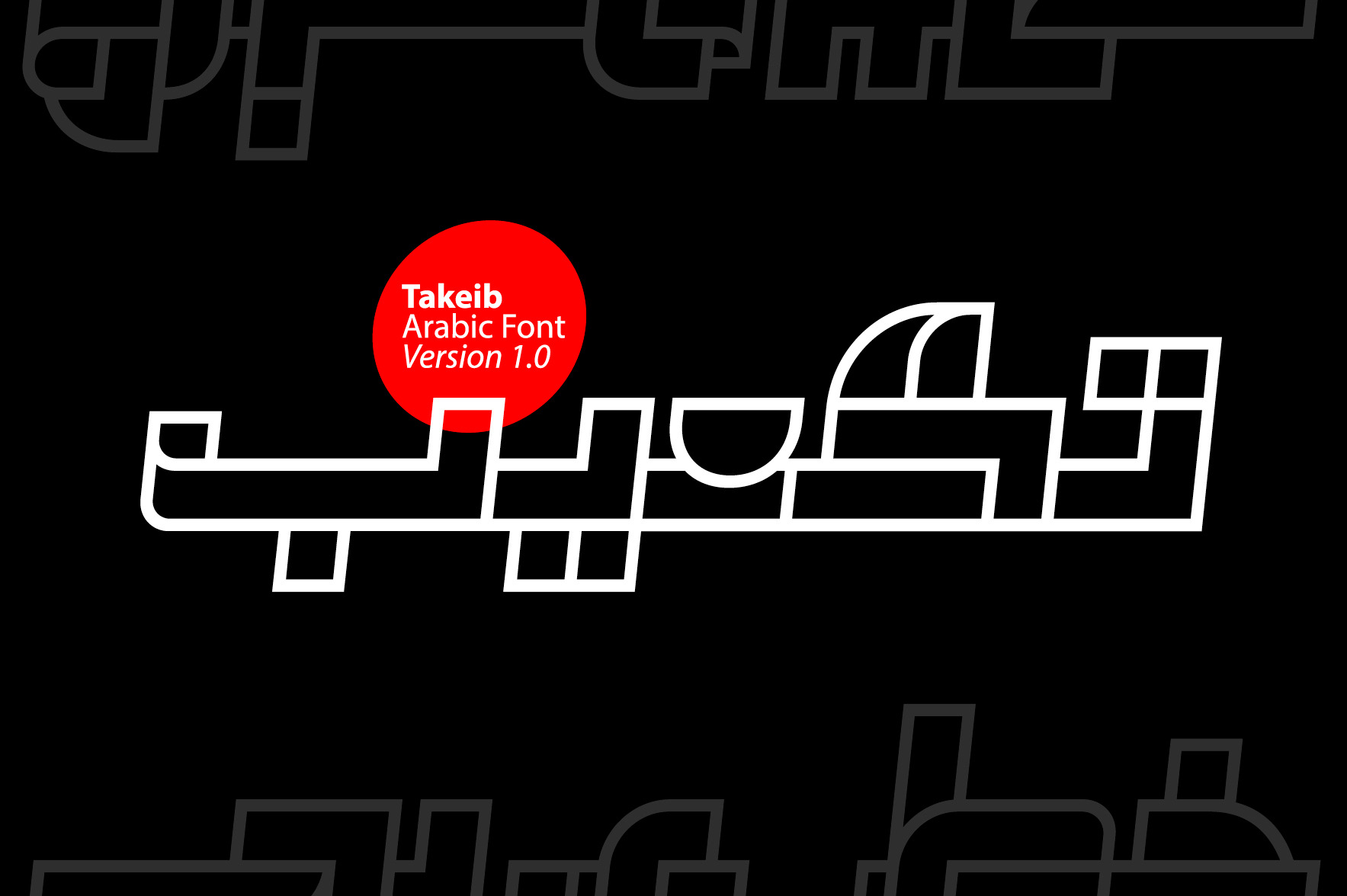
Takeib - Arabic Font
Takeib, which translates to 'Cubify' in Arabic, is a unique Arabic display font characterized by its wireframe letterform structure. Its striking geometric design makes it suitable for a wide array of creative endeavors, such as logotypes, advertising, typography, and web design. Takeib is compatible with Windows, macOS, and mobile applications.